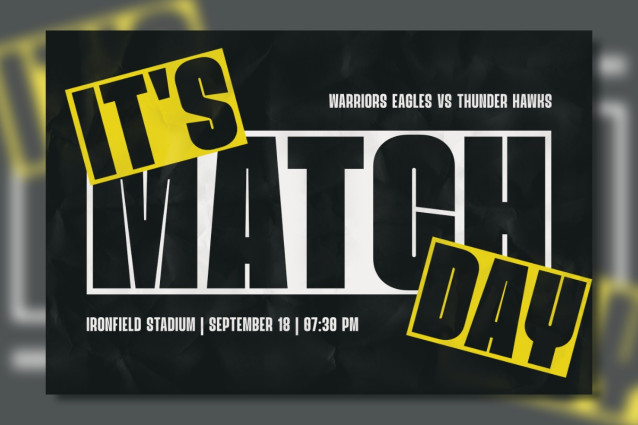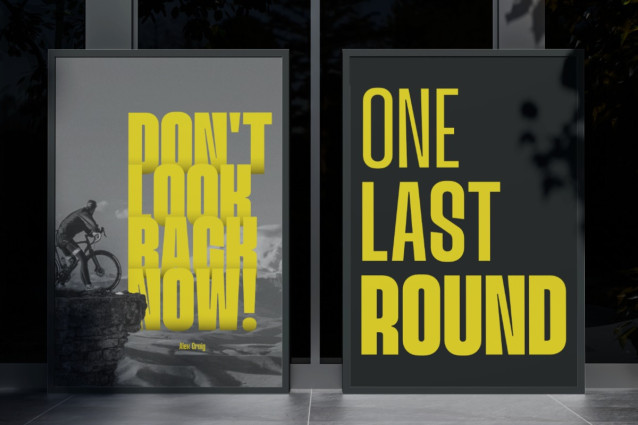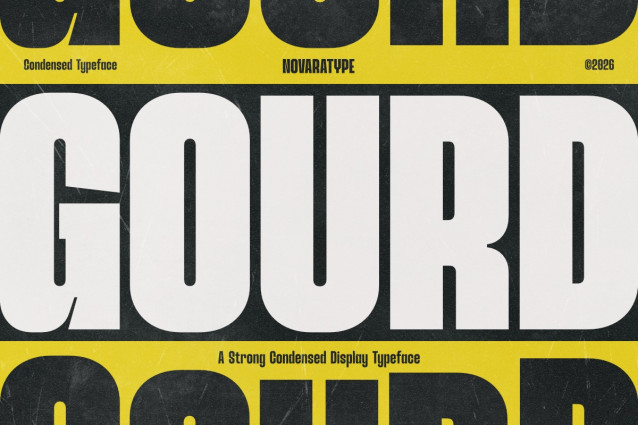
Nv Gourd Font
Nv Gourd Font is a bold and energetic type system designed to maximize visual impact while maintaining clarity and efficiency. Developed by NovaraType, NV Gourd combines condensed proportions, strong vertical presence, and confident letterforms—making it an excellent choice for posters, branding, sports graphics, packaging, editorial headlines, and attention-grabbing display applications.
NV Gourd is carefully crafted to perform across a wide range of creative applications while maintaining a powerful and consistent typographic identity. Its condensed structure allows designers to create bold compositions in limited spaces without sacrificing readability or visual character. The strong geometry and compact proportions help deliver an assertive presence that feels modern, dynamic, and highly functional.
Whether used for large-scale advertising campaigns, sports branding, product packaging, editorial layouts, or contemporary visual identities, NV Gourd provides the versatility and impact needed to make every message stand out. Built with precision and personality, it offers a bold typographic solution for designers seeking strength, efficiency, and modern style.